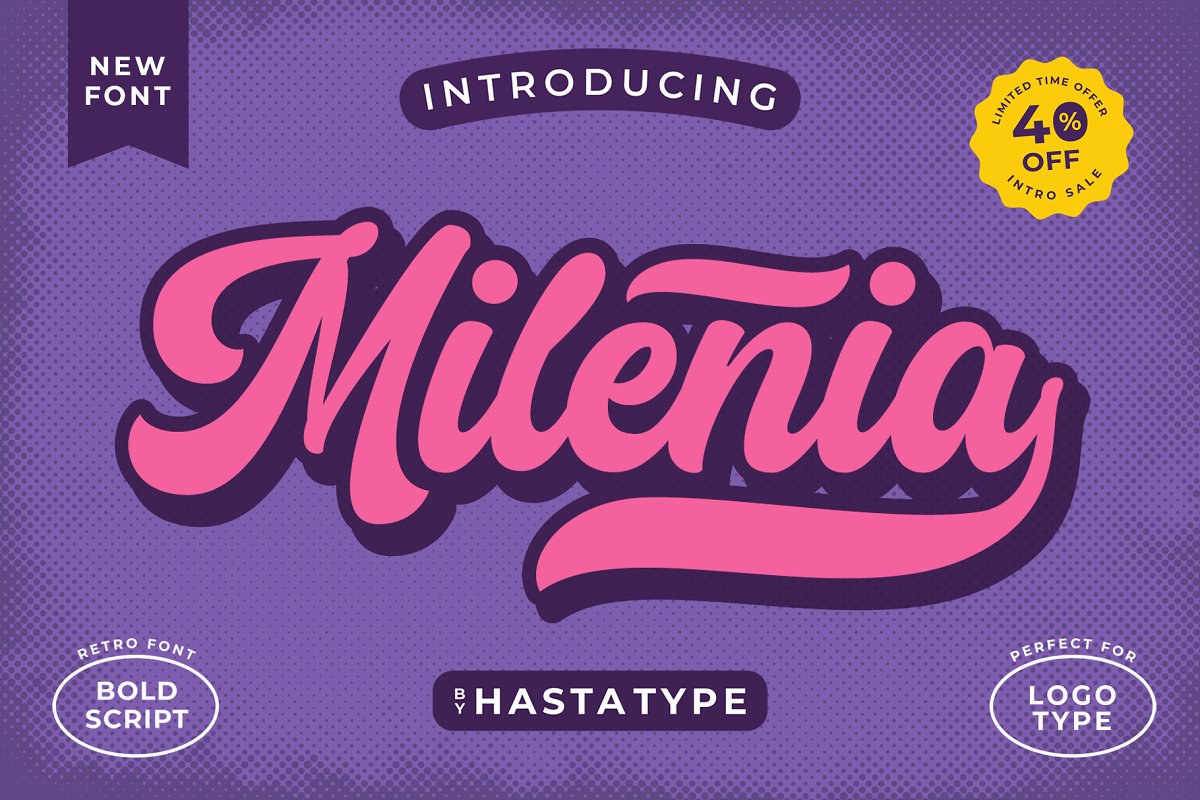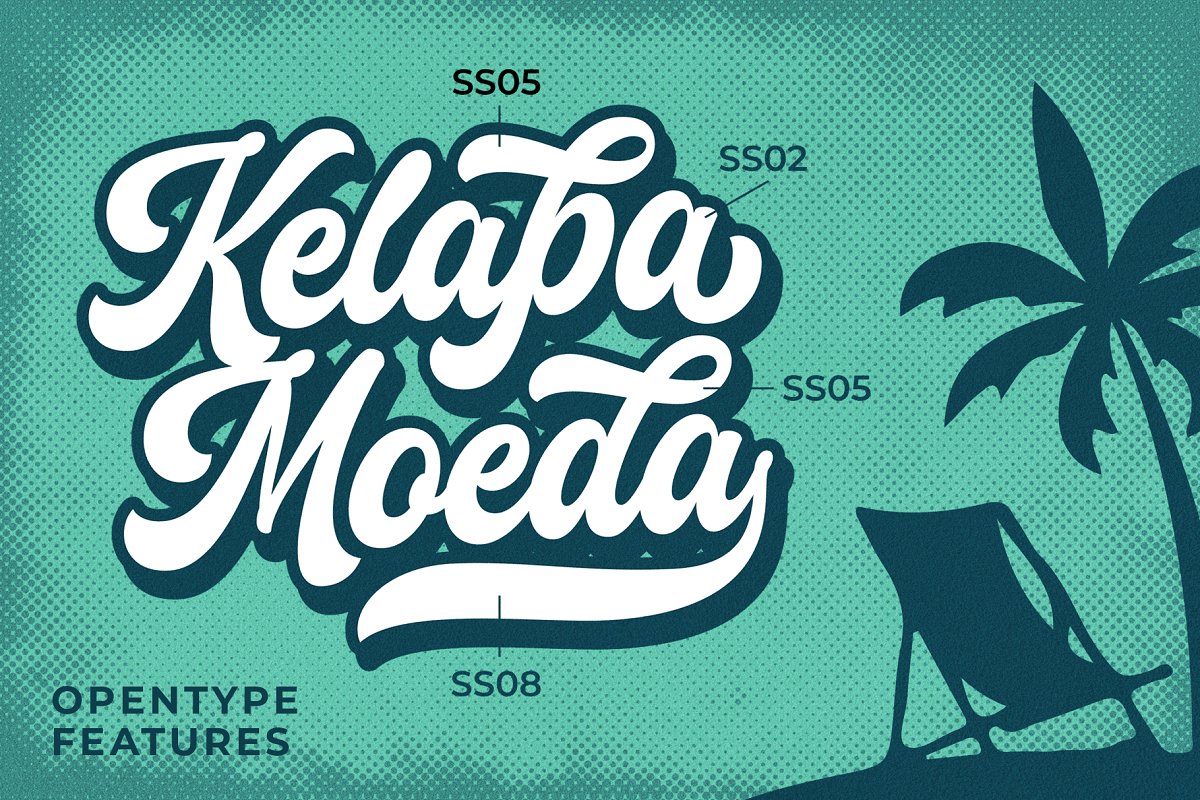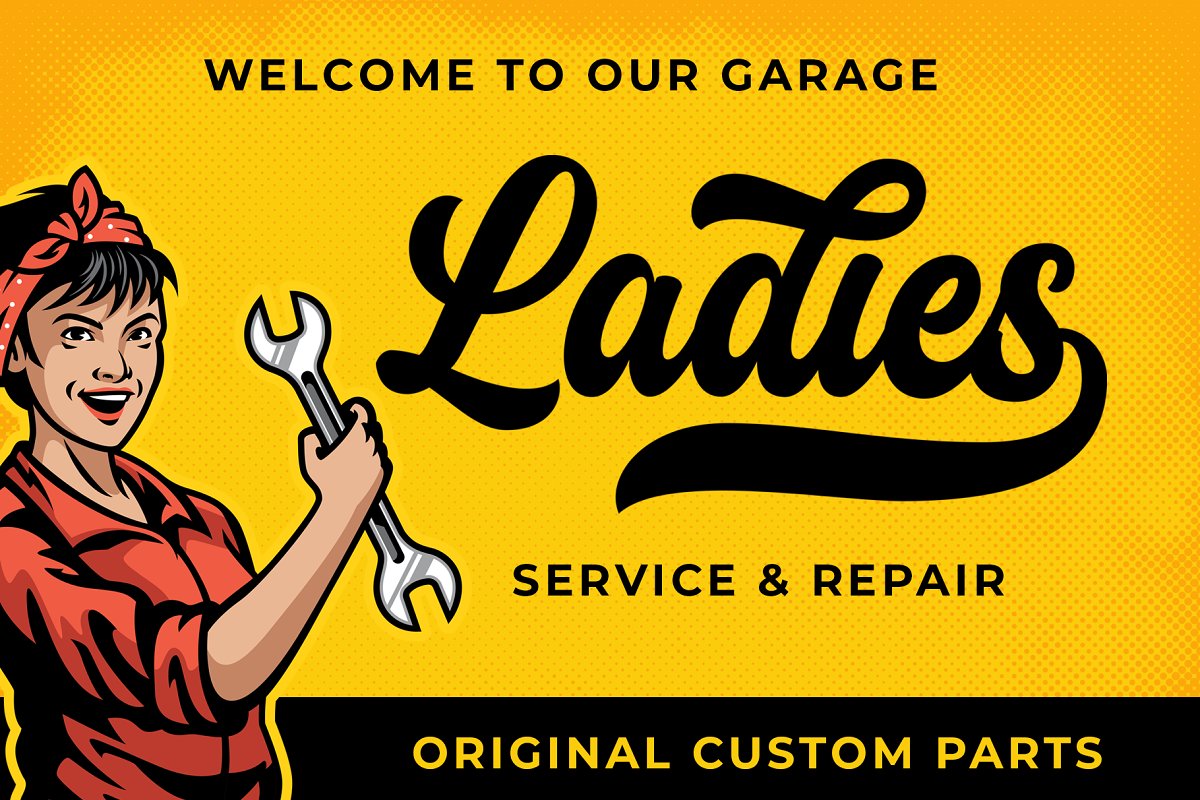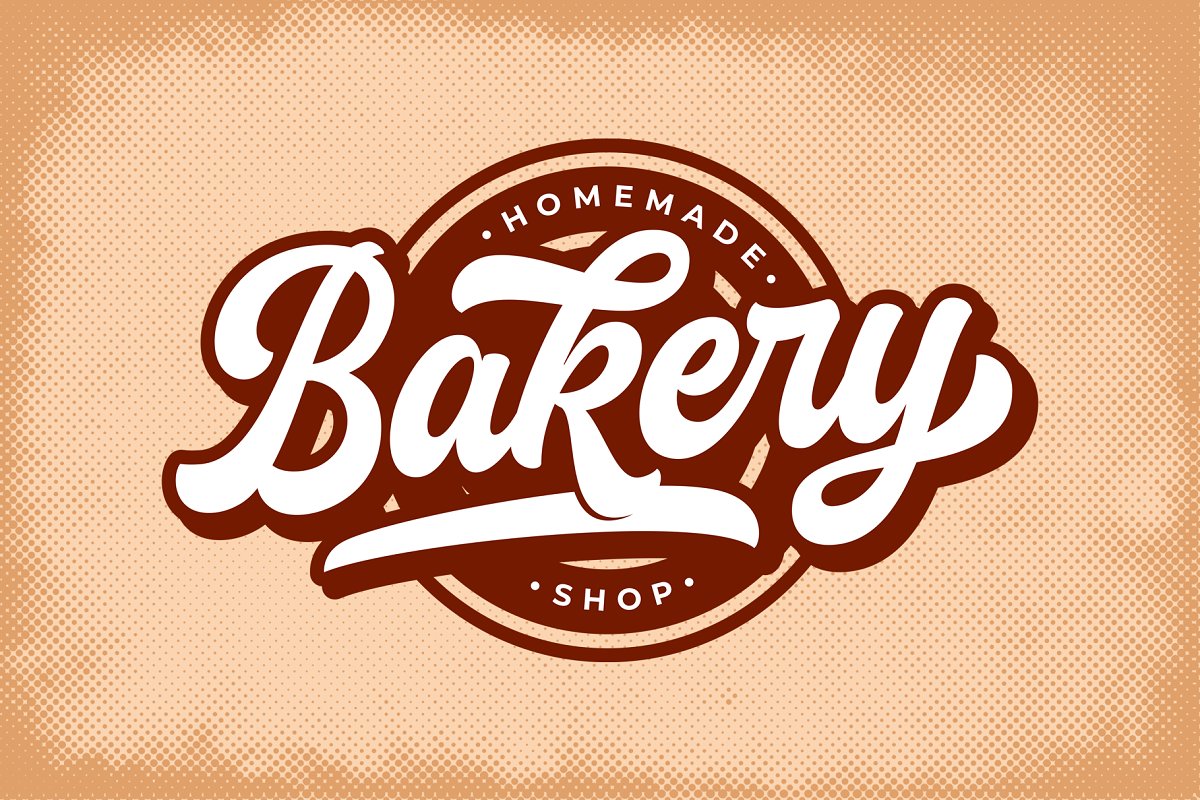
About the Milenia Bold Script 40% OFF
INTRO SALE 40% OFF – Limited Time OfferMilenia is bold script typeface inspired by 90s style, It’s crafted based original lettering of the author, Featured with many alternates, Milenia is best and perfect for designing logotype, Moreover, It also nice for designing another design needs such as tshirt design, packaging, branding, logo, labels, badge, magazines, quotes and any others